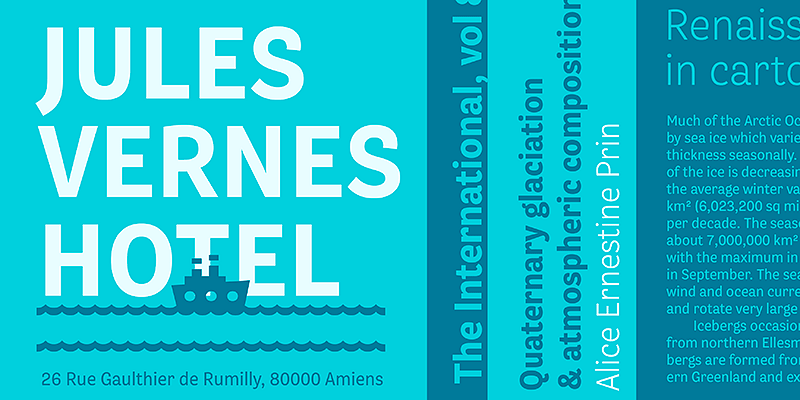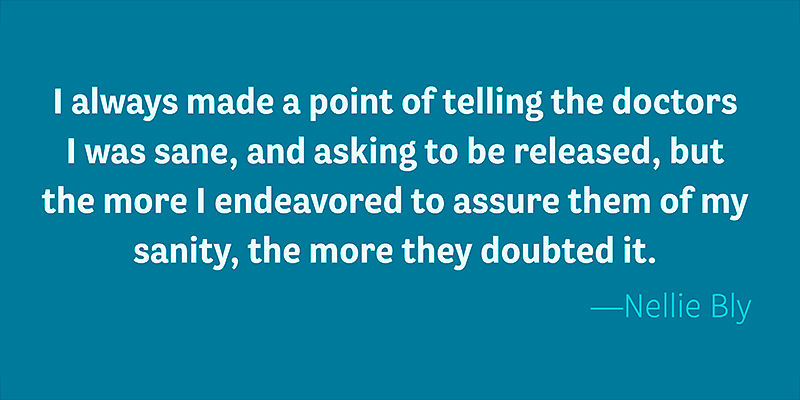
Bligh’s curvy terminals and quirky skeleton deliver a unique approach to sans serif design. Its three weights give a versatile choice when you need a font that stands out from the crowd.